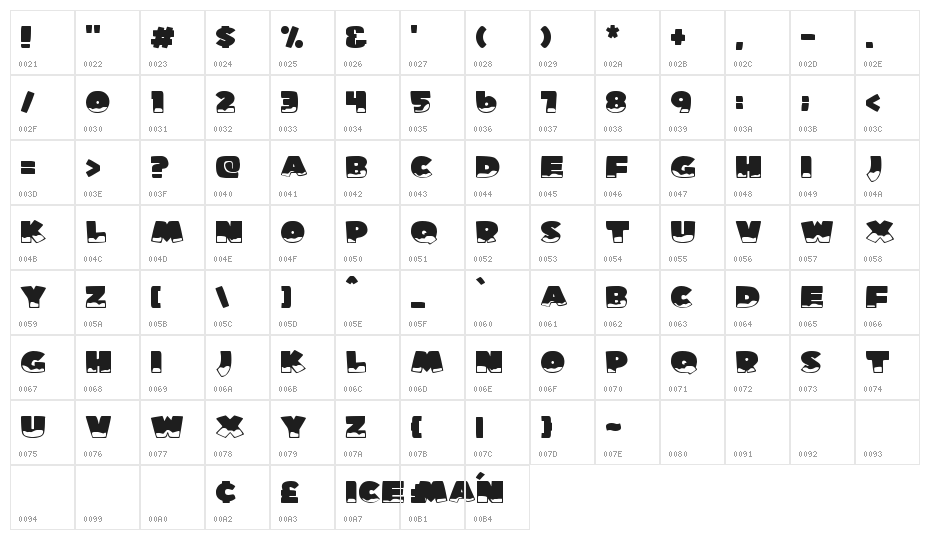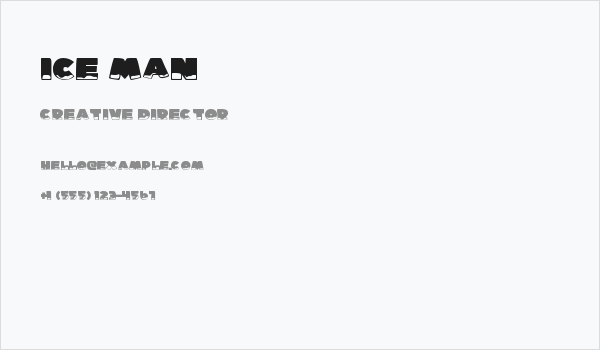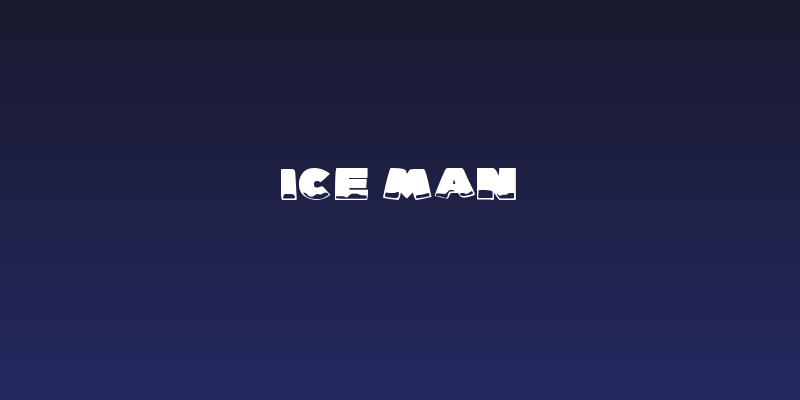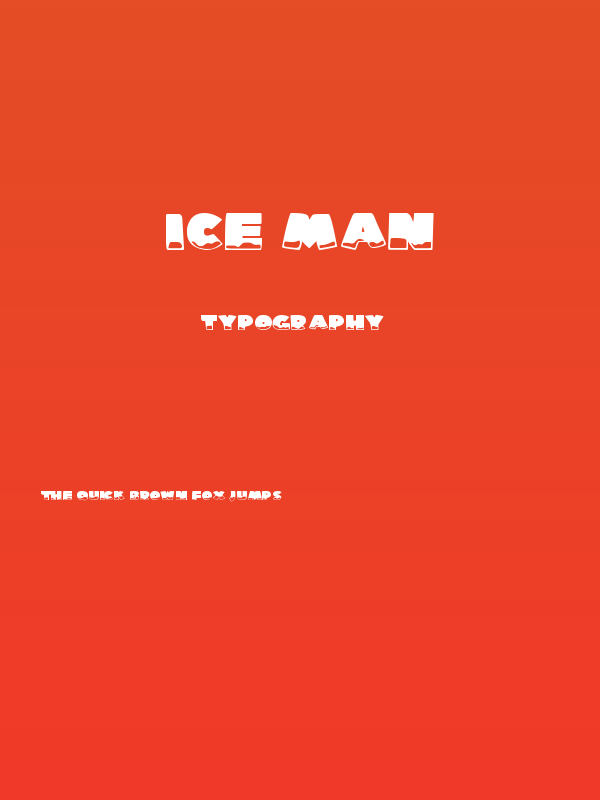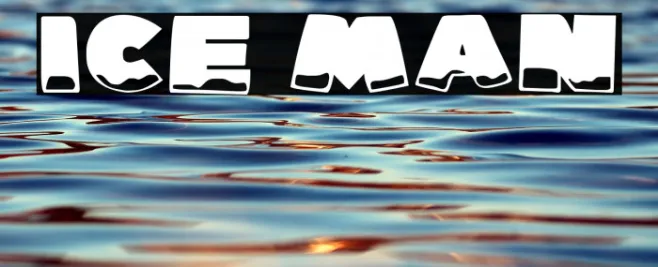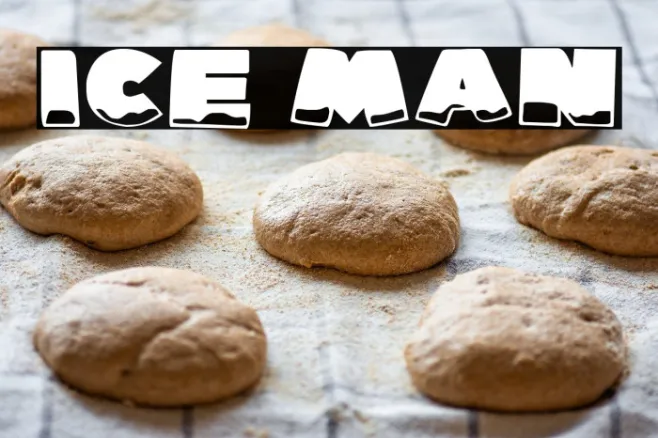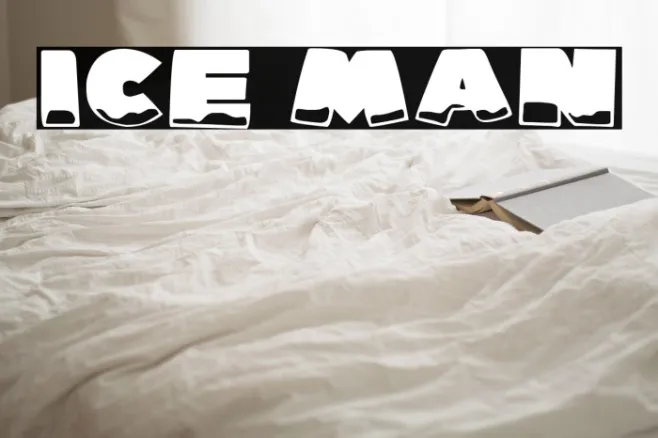
Ice Man Font
Ice Man Description
This playful and bold font features a unique design with a frosty, icy appearance. Each character is crafted with a thick, solid structure, incorporating a snow-like texture at the bottom, giving it a whimsical and fun look. The uppercase and lowercase letters maintain a consistent style, with rounded edges and a slightly condensed form. The numerals and special characters follow the same theme, ensuring a cohesive appearance across all glyphs. This font is perfect for projects that require a touch of winter magic or a playful, cartoonish vibe.
| Proposed Projects | Ideal for winter-themed posters, children's book covers, holiday cards, and playful branding. |